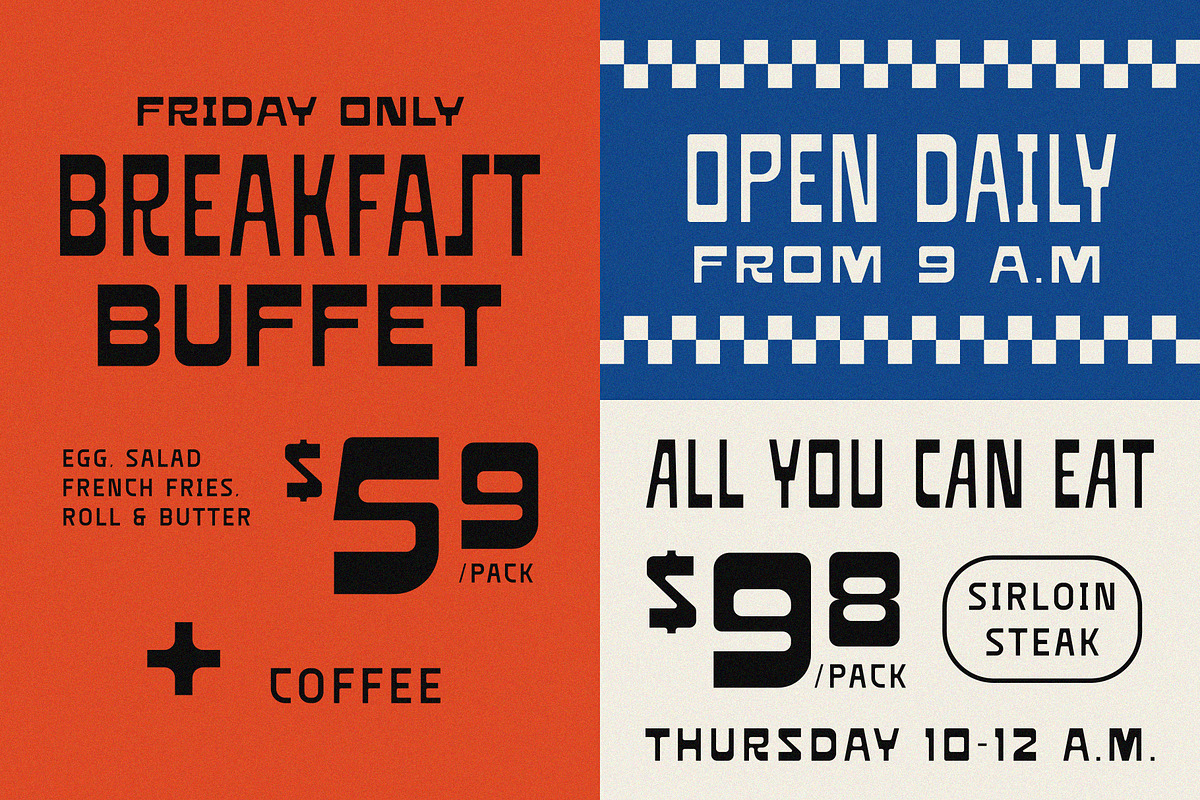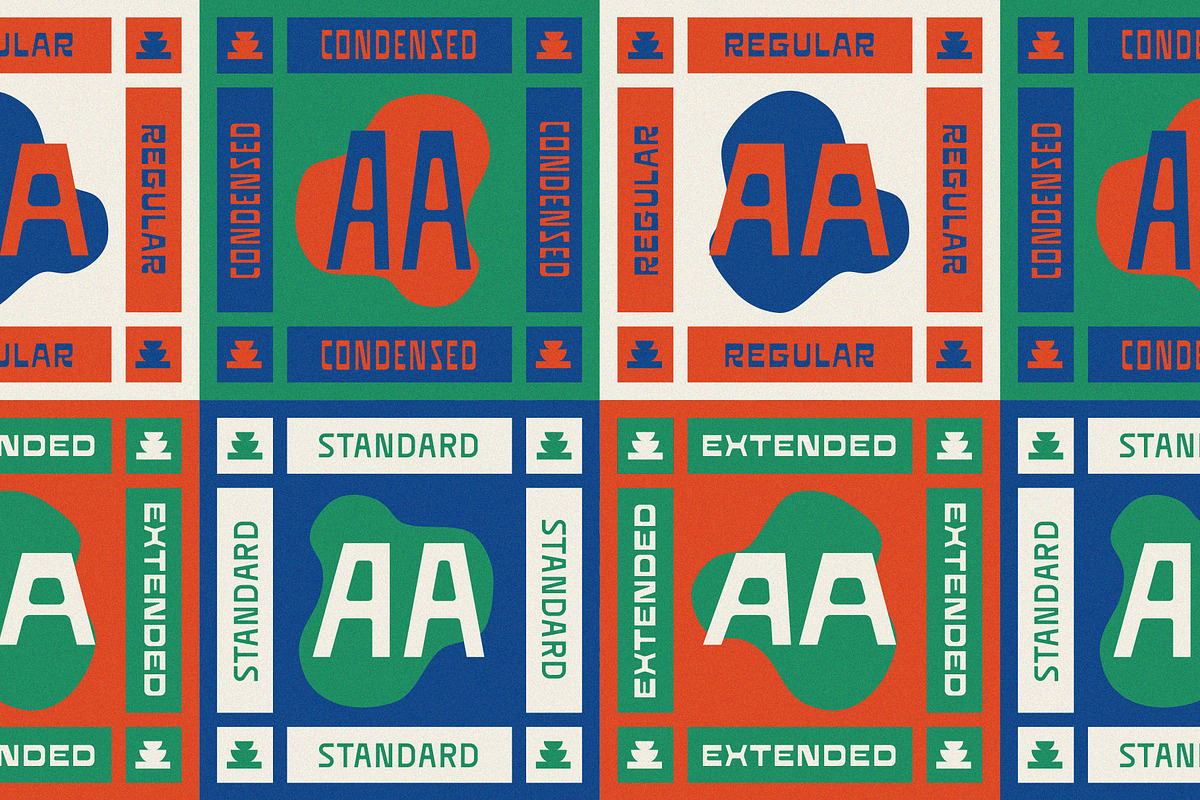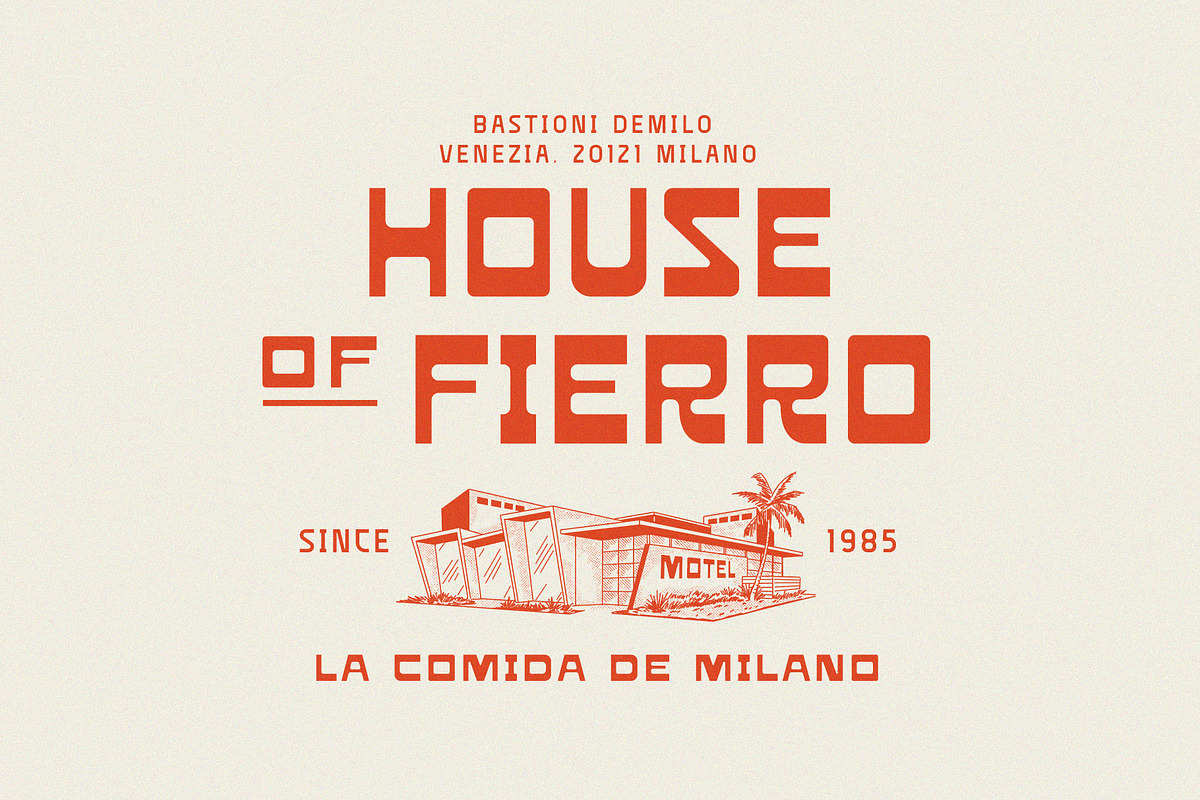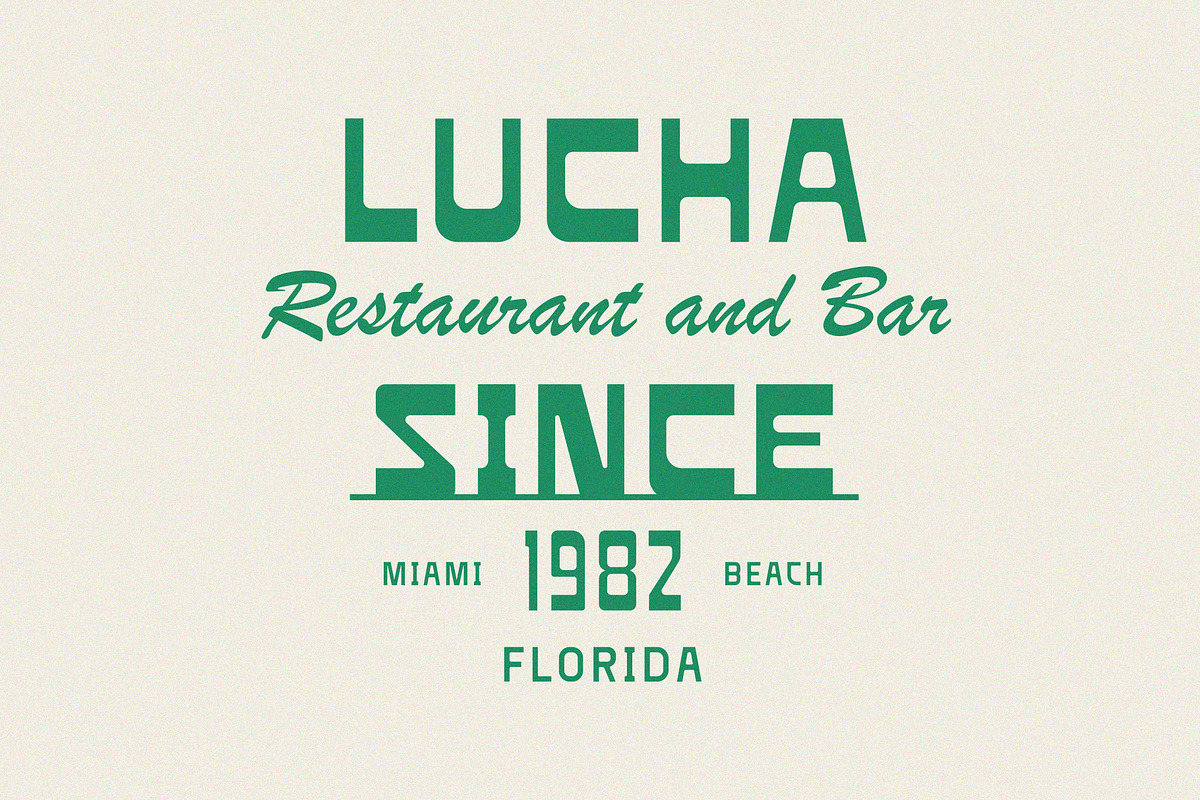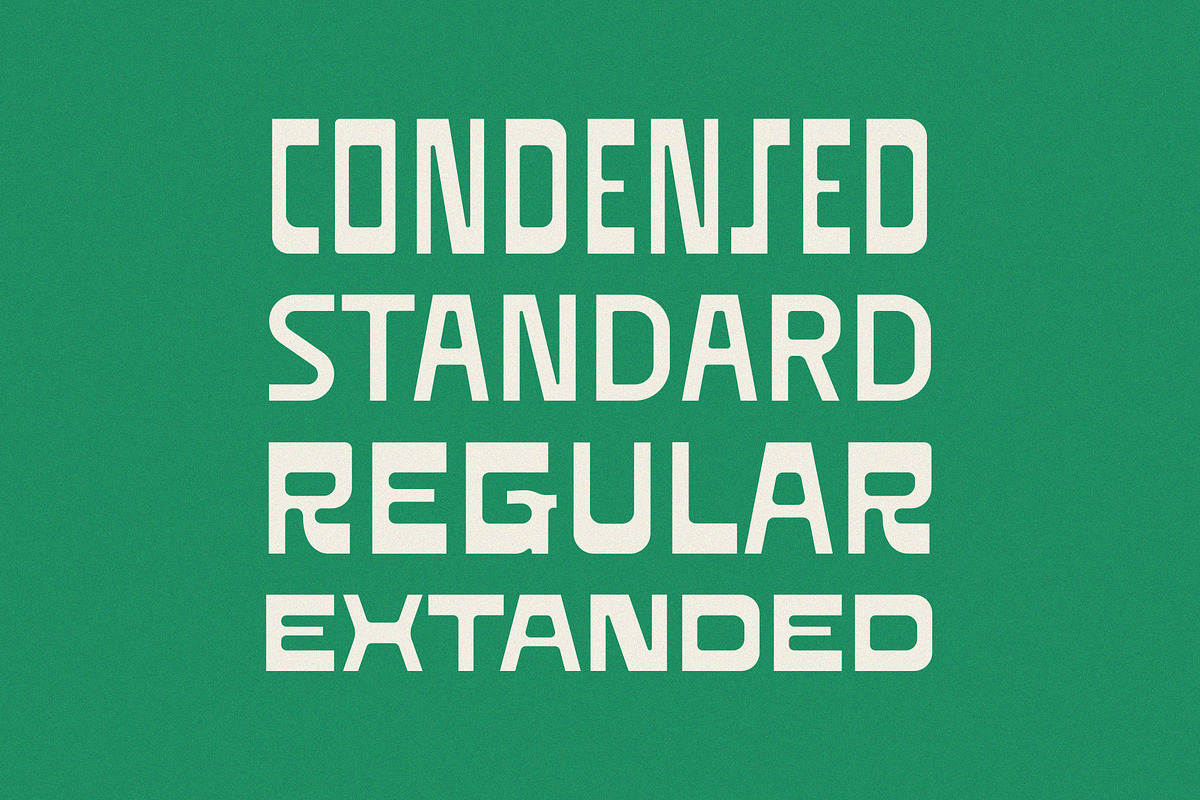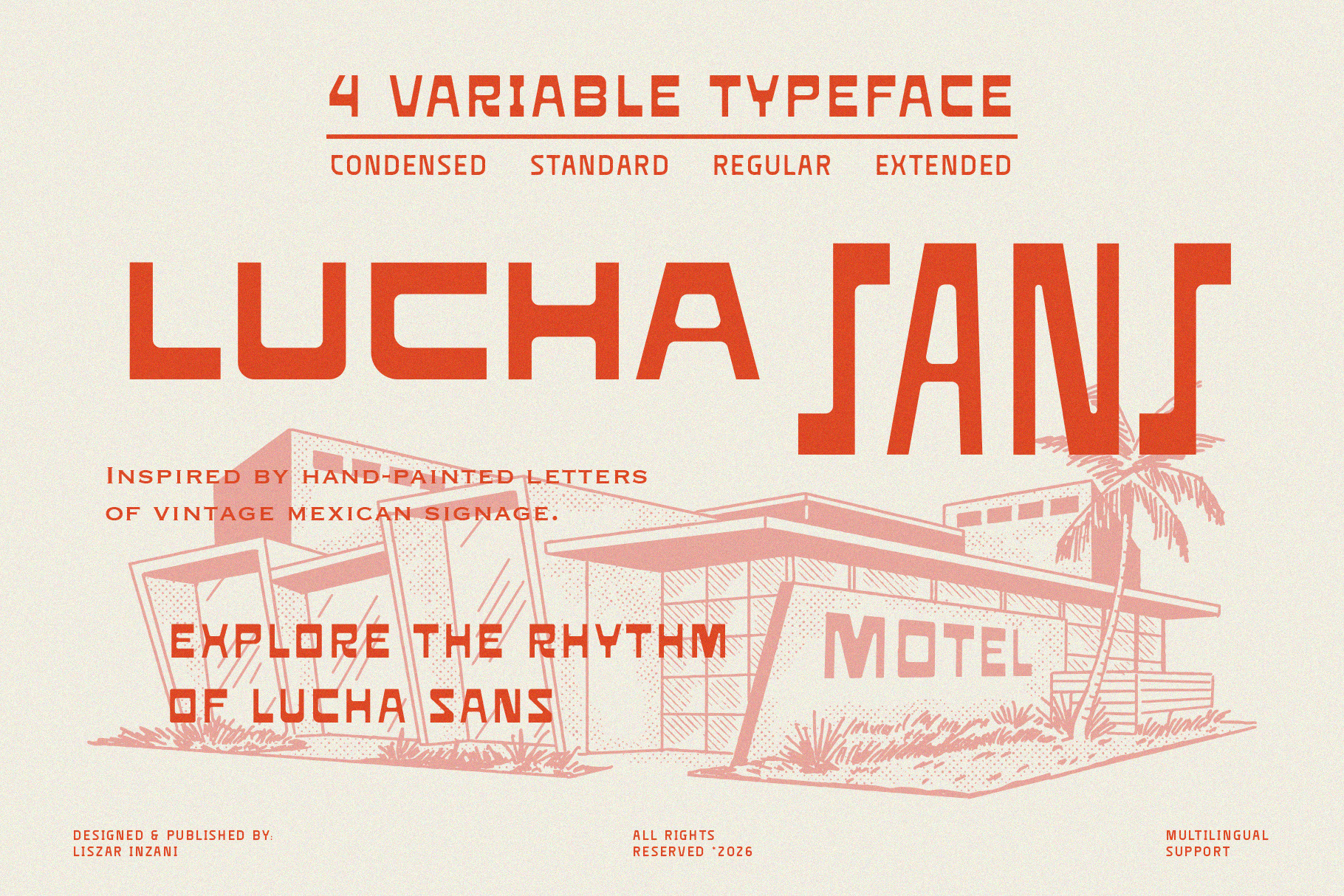
Lucha Sans – Variable Font
**Lucha Sans **– Variable Font Family
Inspired by the bold energy of vintage Mexican signage. Lucha Sans brings an authentic, hand-painted feel to your work. With versatile styles ranging from tight headlines to sweeping text, it’s designed to help your typography find it’s perfect rhythm.